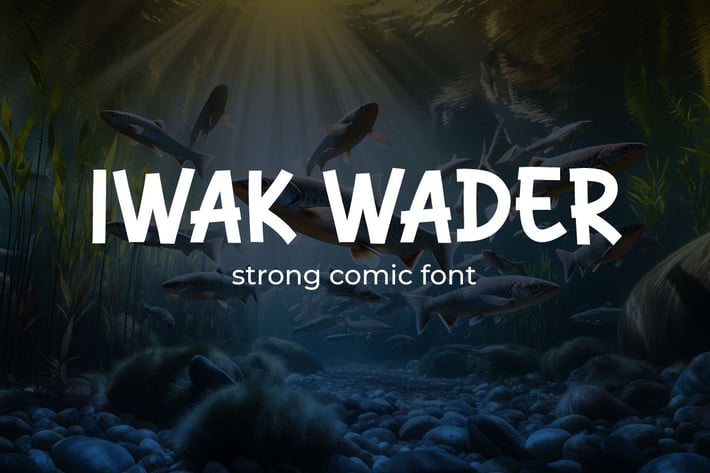
Iwak Wader - Strong Comic Font
Introducing IWAK WADER, a comic-style font that combines simplicity and boldness. This font is designed to convey messages in a fun and easy-to-read manner. Ideal for various design needs such as posters, children's books, social media content, and other creative projects. With its strong and impactful characters, this font will make your work come alive and stand out. Add a unique comic touch to your designs with this font.